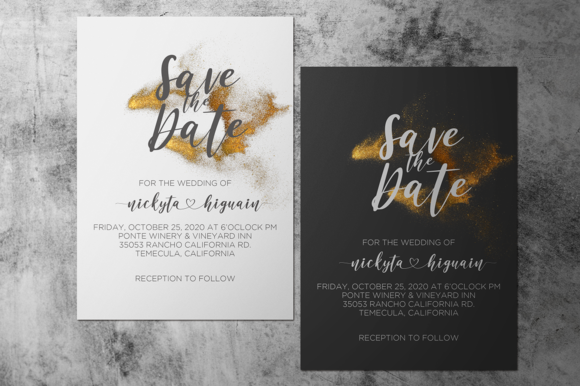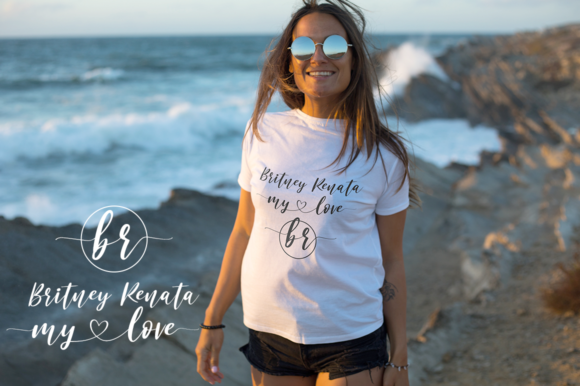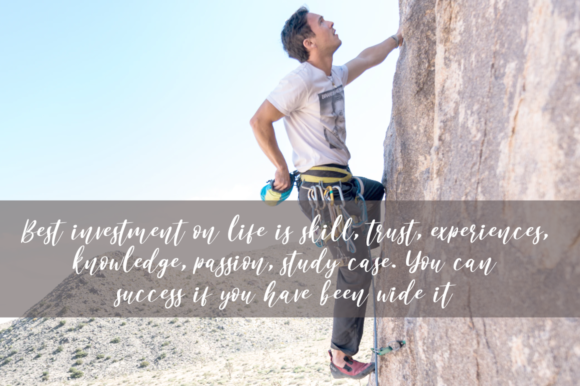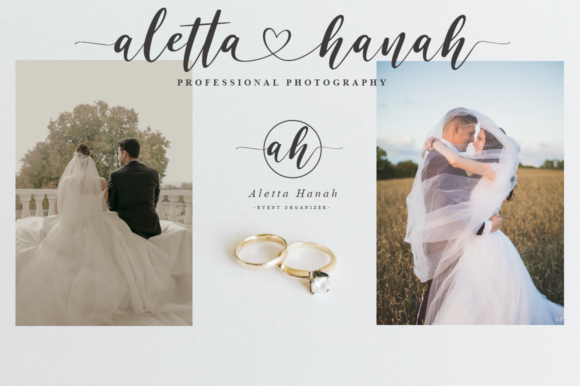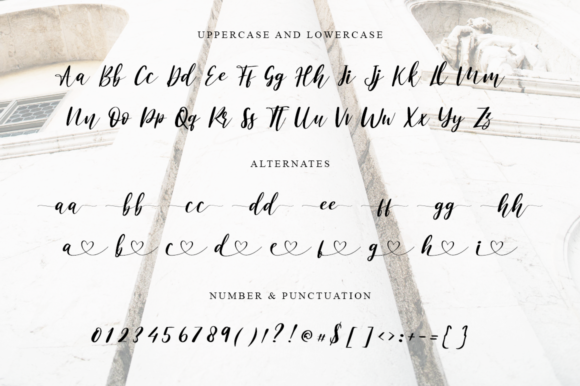
The Magical Athena Font: A Designer’s Dream Come True
Have you ever been in the middle of a design project, and suddenly, you’re stuck on finding the perfect font? I recall a particularly frustrating experience when a client asked for a elegant, yet friendly font for their branding project. After hours of searching, I stumbled upon the Athena font, and it was love at first sight! ✨ In this article, I’ll share my experience with this beautiful handwritten font, its features, and how to make the most of it in your designs.
A Personal Review of Athena Font
- ✨ Elegant yet friendly: Athena font strikes the perfect balance between timeless elegance and authentic calligraphy.
- ✅ PUA encoded: Easy access to all the cute glyphs and swashes, making it a breeze to add a personal touch to your designs.
- ✅ Alternate glyphs and ligatures: A wealth of special features to experiment with and make your designs truly unique.
- ✅ Classic style with a friendly feel: Athena font is perfect for creating original and outstanding designs that resonate with your audience.
While Athena font is an excellent choice, there are a few minor limitations to consider: ⚠️
- 🤔 Some glyphs may require manual adjustment: Depending on the design, you might need to tweak certain glyphs to achieve the desired look.
- ⚠️ Not suitable for very small font sizes: Athena font is best used at larger font sizes to showcase its elegant features.
A Practical Guide to Using Athena Font
The Story Behind Athena Font
Athena font was inspired by the Greek goddess of wisdom, known for her intelligence, creativity, and elegance. The font’s creator aimed to capture the essence of these qualities, blending timeless elegance with authentic calligraphy. The result is a beautiful, handwritten font that’s both classic and friendly.
A: PUA (Private Use Area) encoding allows font users to access additional glyphs and swashes, making it easier to add a personal touch to designs.
Q: Is Athena font suitable for body text?
A: While Athena font is beautiful, it’s best used for headings, titles, or short paragraphs. For body text, a clearer font might be more suitable.